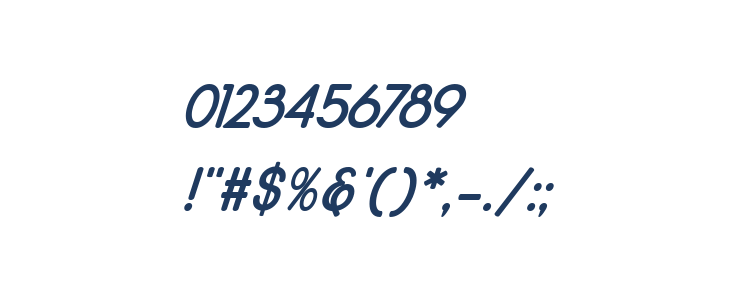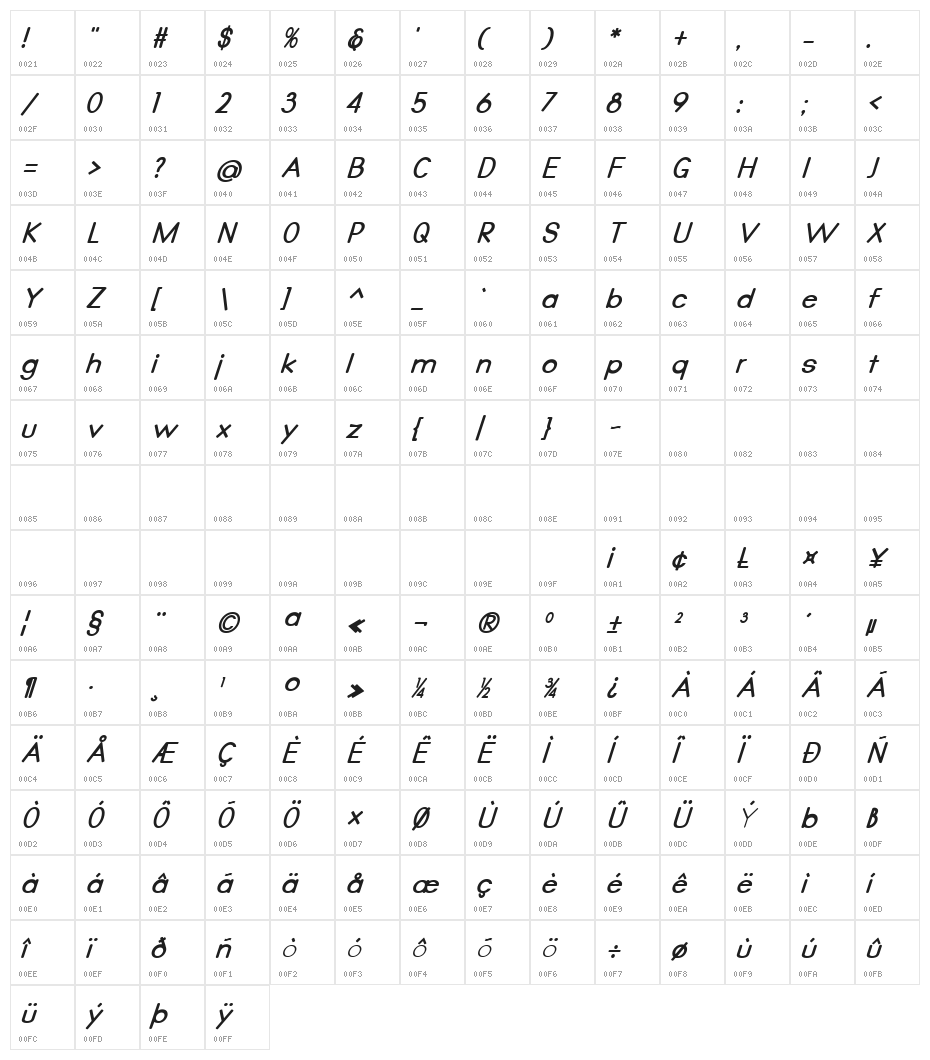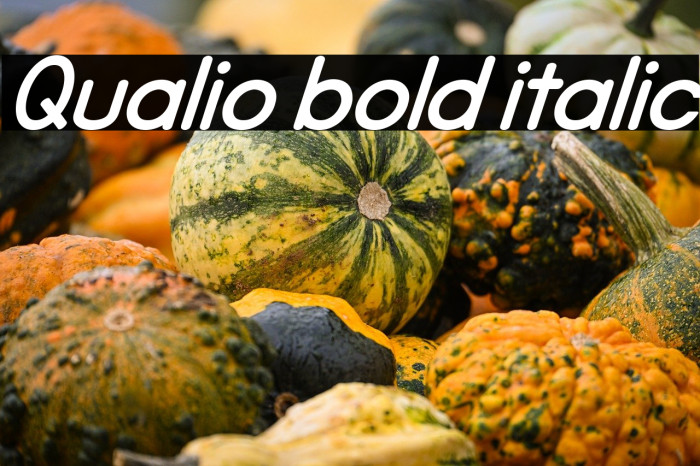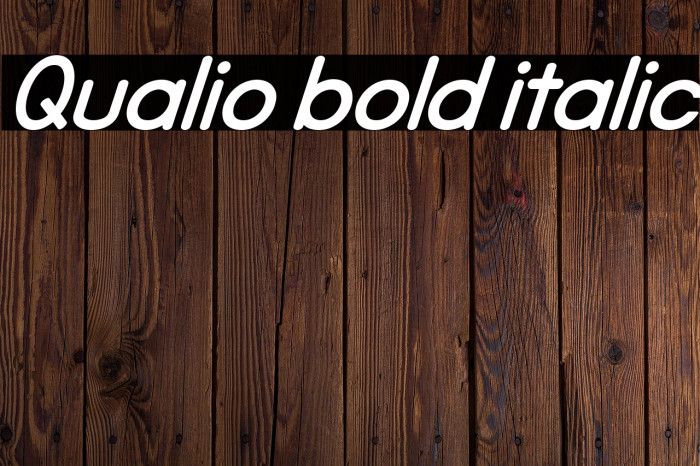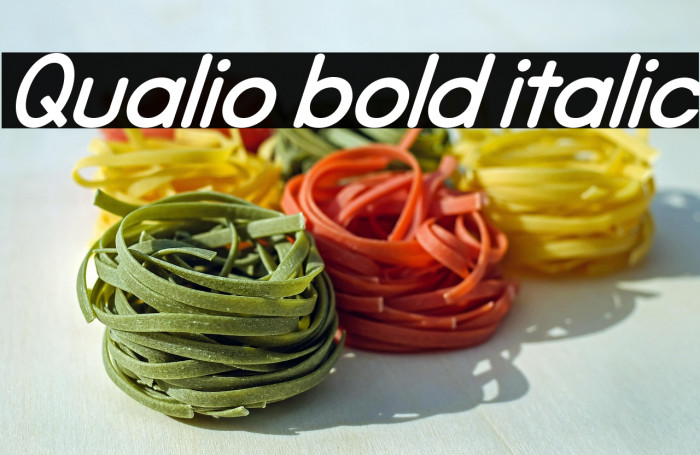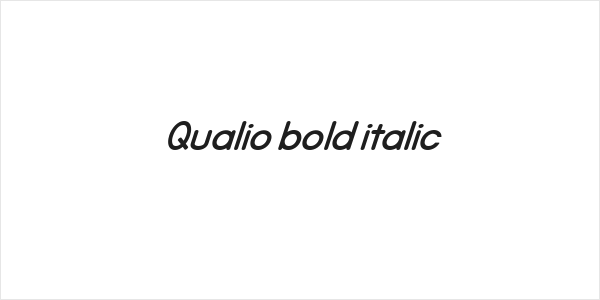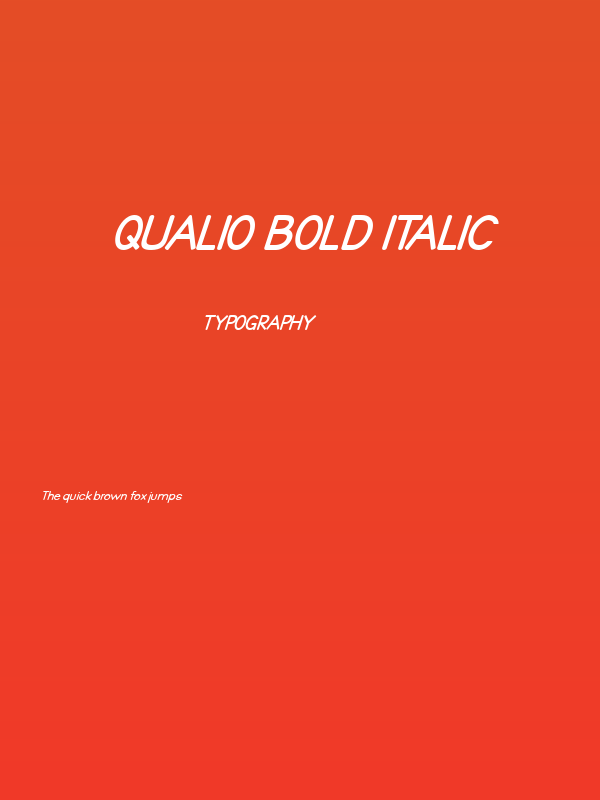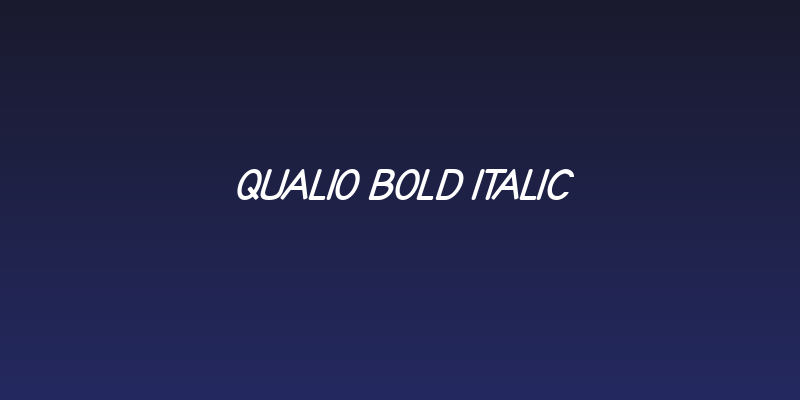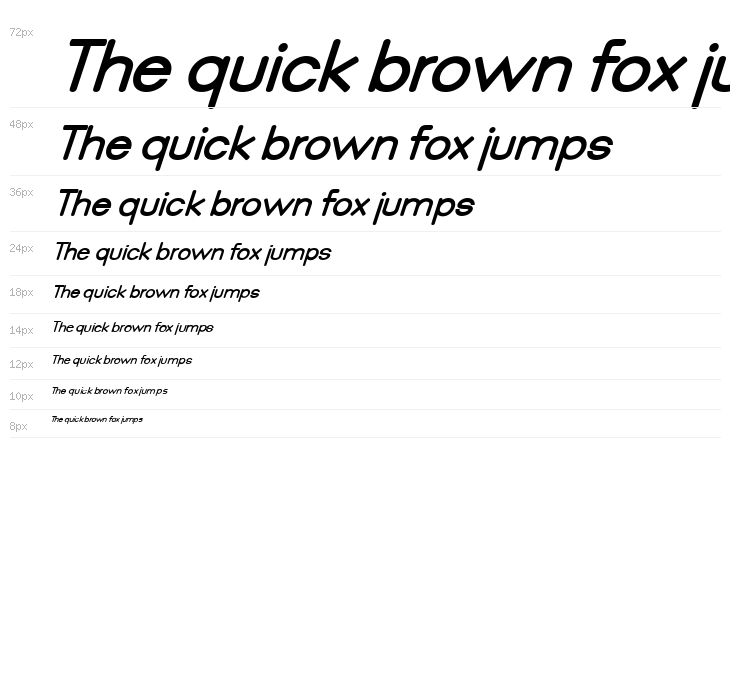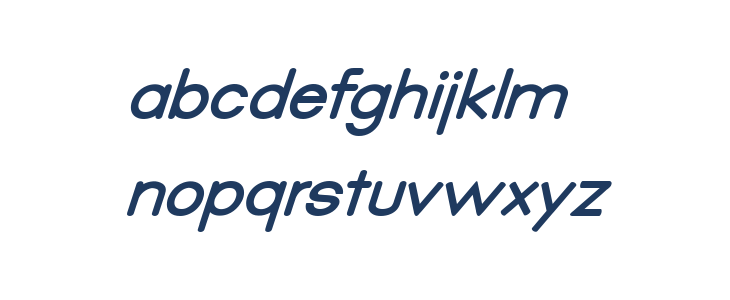
Qualio bold italic Font
Qualio bold italic Description
This font exhibits a modern and sleek design with a distinct italic slant, giving it a dynamic and forward-moving appearance. The characters are bold, providing a strong visual impact, while maintaining a smooth and rounded form that enhances readability. The consistent stroke width across all characters contributes to a uniform look, making it suitable for various design applications. The font's clean lines and lack of serifs add to its contemporary feel, making it ideal for projects that require a fresh and energetic aesthetic. The character spacing is normal, ensuring legibility even at smaller sizes.
Use CaseHeadlines, Logos, Branding
Proposed ProjectsIdeal for branding, advertising, headlines, and digital media projects that require a strong and contemporary look.